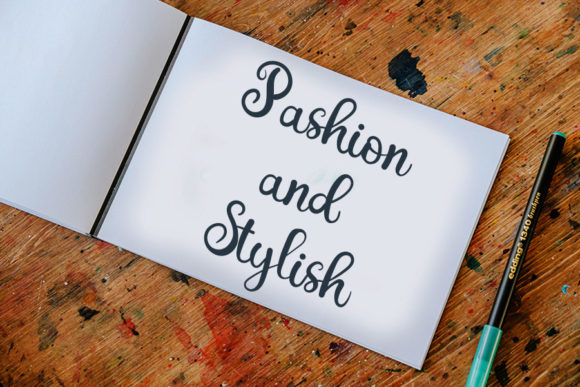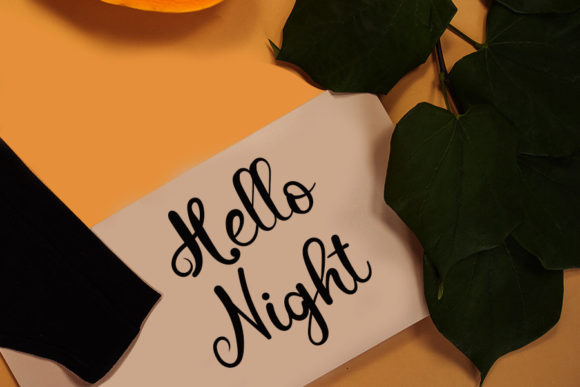
About Sweet Candy Font
Sweet Candy is a cool, friendly, and whimsical handwritten font. Add it to wedding invitations, birthday cards, thank you notes, and other projects that require a youthful and joyful look!